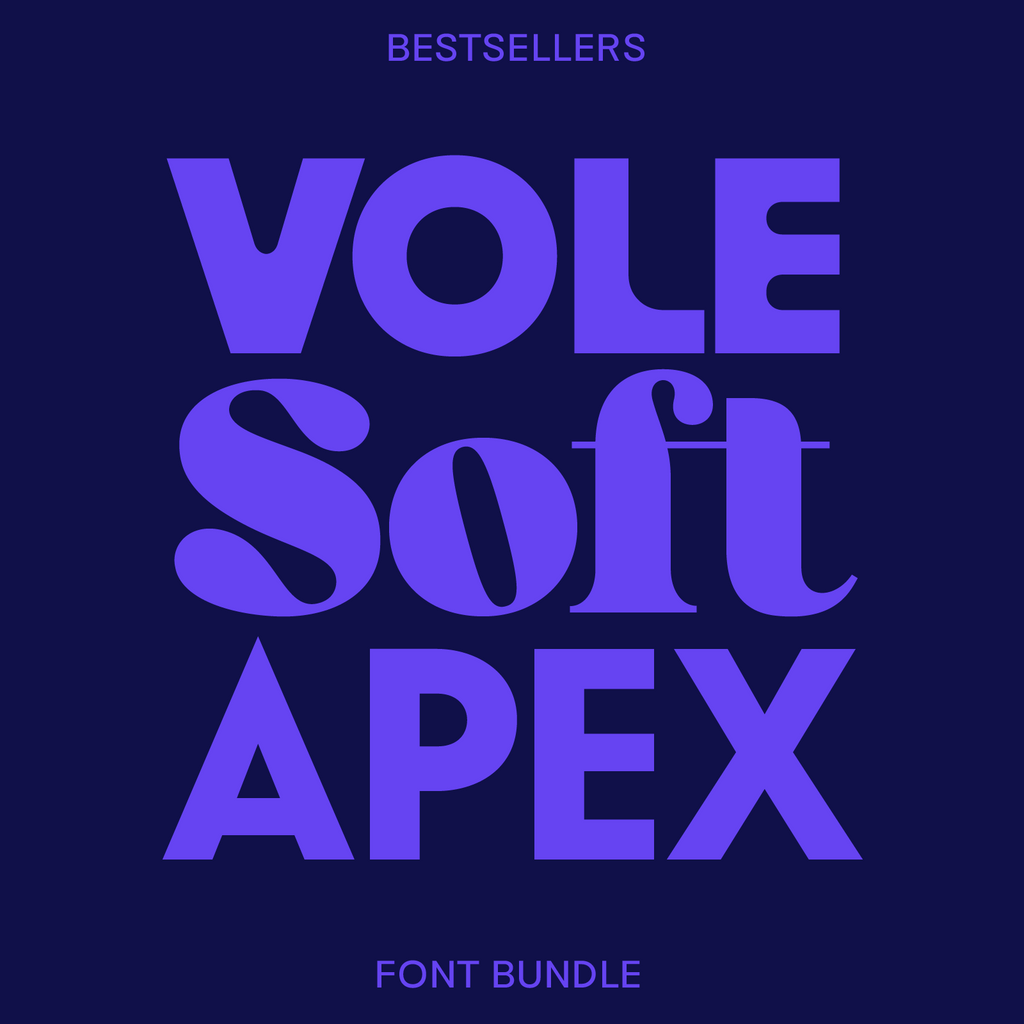
Bestsellers 3-Pack
Our three most loved fonts. Vole, Bauhaus Soft, and Apex are easy to pair and easy to live with. The kind you will use often. Includes 3 full families: Vole, Soft and Apex.